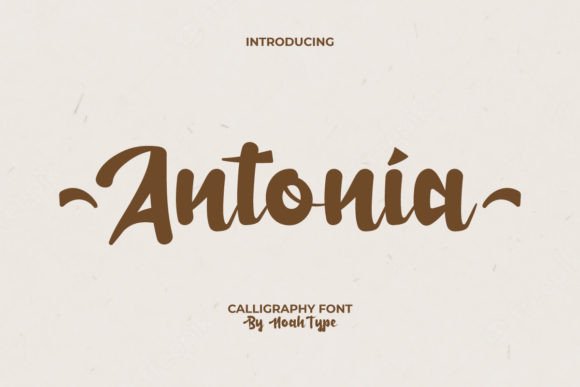
The Charming Antonia Font: A Designer’s New Best Friend
I’ll never forget the time I was working on a wedding invitation project, and my client asked for a font that was both elegant and charming. I scoured the internet, tried out countless fonts, but nothing seemed quite right. That was until I stumbled upon the beautiful Antonia Font. It’s been a game-changer for me ever since! 💕
So, what makes Antonia Font so special? Let’s dive into the good stuff and a few quirks I’ve noticed.
- ✨ Elegant and charming aesthetic that’s perfect for wedding invitations, thank you cards, and more
- ✅ PUA encoded for easy access to glyphs and ligatures
- 💫 Works beautifully on a variety of design materials, from logos to greeting cards
- 🎨 Highly versatile and can be used for both digital and print projects
While Antonia Font is an amazing addition to any design project, there are a few things to keep in mind:
- ⚠️ Some users may find the font a bit too delicate for certain design applications
- 🤔 May require a bit of experimentation to get the hang of using OpenType features and glyphs
The Story Behind Antonia Font
While I couldn’t find any information on the exact origins of Antonia Font, I like to imagine that it was created by a talented designer who wanted to capture the essence of handwritten elegance. Perhaps they were inspired by vintage wedding invitations or romantic letters from the past. Whatever the story, Antonia Font has become a beloved addition to many designers’ toolkits.
| Author | NoahType |
| What is PUA encoding, and how does it benefit Antonia Font? | PUA (Private Use Area) encoding allows designers to access a wide range of glyphs and ligatures, making it easier to create beautiful, unique designs with Antonia Font. |
| Is Antonia Font suitable for digital projects, or is it better suited for print? | Antonia Font is highly versatile and can be used for both digital and print projects. However, keep in mind that it may appear differently on various screens and devices. |
| Can I use Antonia Font in combination with other fonts? | Yes, Antonia Font can be paired with other fonts to create a unique and visually appealing design. Experiment with different font combinations to find the perfect look for your project. |